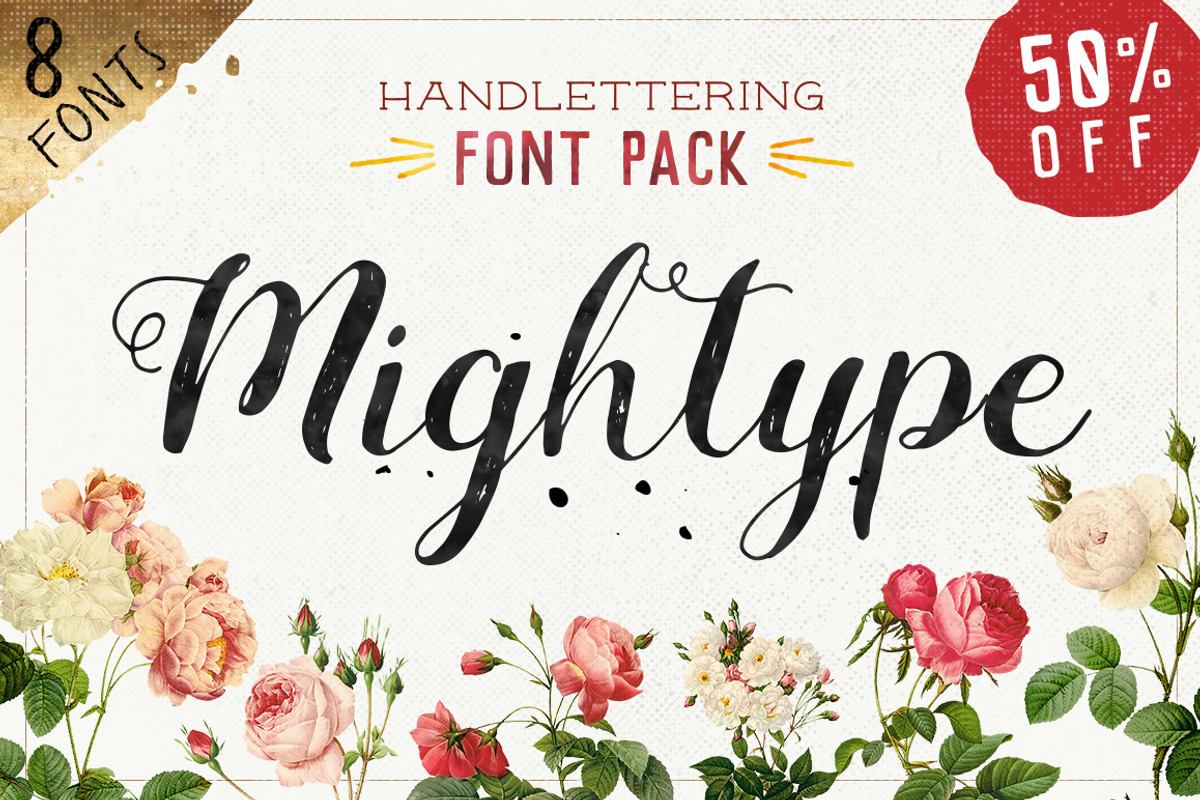
Mightype FontPack Handlettering Free Download is a beautifully crafted collection of hand-lettered fonts, designed to bring an authentic, artistic feel to your creative work. With a mix of casual brush scripts, stylish calligraphy, and signature-style fonts, this pack is perfect for logos, social media graphics, branding, invitations, and packaging with a handmade touch.
Mightype FontPack Handlettering Free Download gives designers a full range of expressive styles to work with—each font loaded with character and charm. Whether you're creating a bold brand identity or a heartfelt quote graphic, this pack helps your designs feel personal and professional. Download it now and explore the creative possibilities of Mightype’s hand-lettered flair.